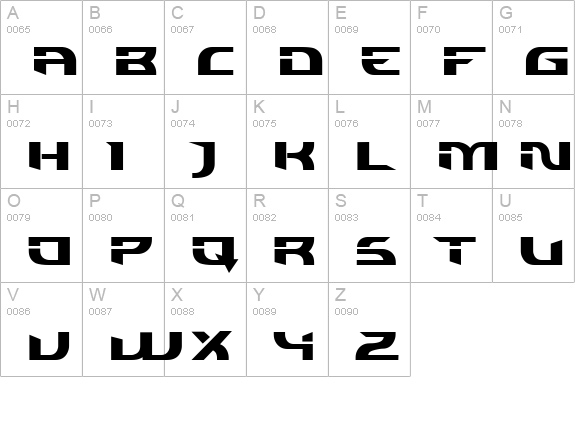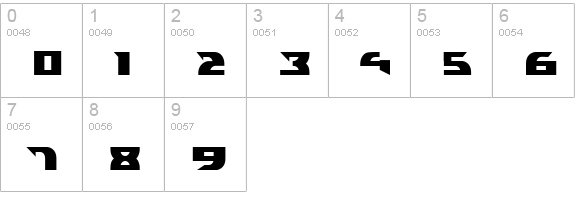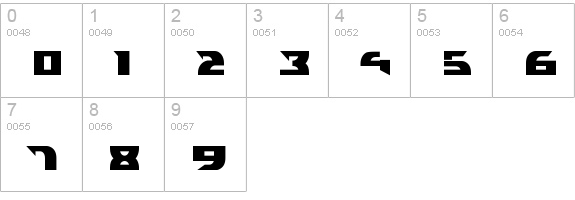
Individigital Black is a maximum-weight, dramatic variant in the Individigital typeface family \xE2\x80\x94 well suited to maximum-impact headlines, posters, and packaging.
Individigital Black font is a sleek and modern typeface that exudes confidence and sophistication. Its bold and strong letterforms make a statement, commanding attention in any design project. With its clean lines and unique geometric shapes, this font is perfect for headlines, logos, and branding materials. What sets Individigital Black font apart is not only its striking aesthetic but also its accessibility. It is freely available to download at FontsMarket.com, allowing designers and creatives to easily incorporate it into their work without any hassle. This means that you can enjoy the benefits of this stunning font without breaking the bank. Whether you're working on a professional project or simply want to add a touch of elegance to your personal designs, Individigital Black font is a versatile choice that will elevate your work to new heights. Its versatility allows it to be used in a wide range of contexts, from websites and social media graphics to print materials and advertisements. Don't miss the opportunity to enhance your designs with the power and style of Individigital Black font. Download it for free at FontsMarket.com and see the difference it can make in your creative endeavors. With its bold and captivating presence, this font is sure to make a lasting impression on your audience. So why wait? Get your hands on Individigital Black font today and unlock a world of design possibilities.